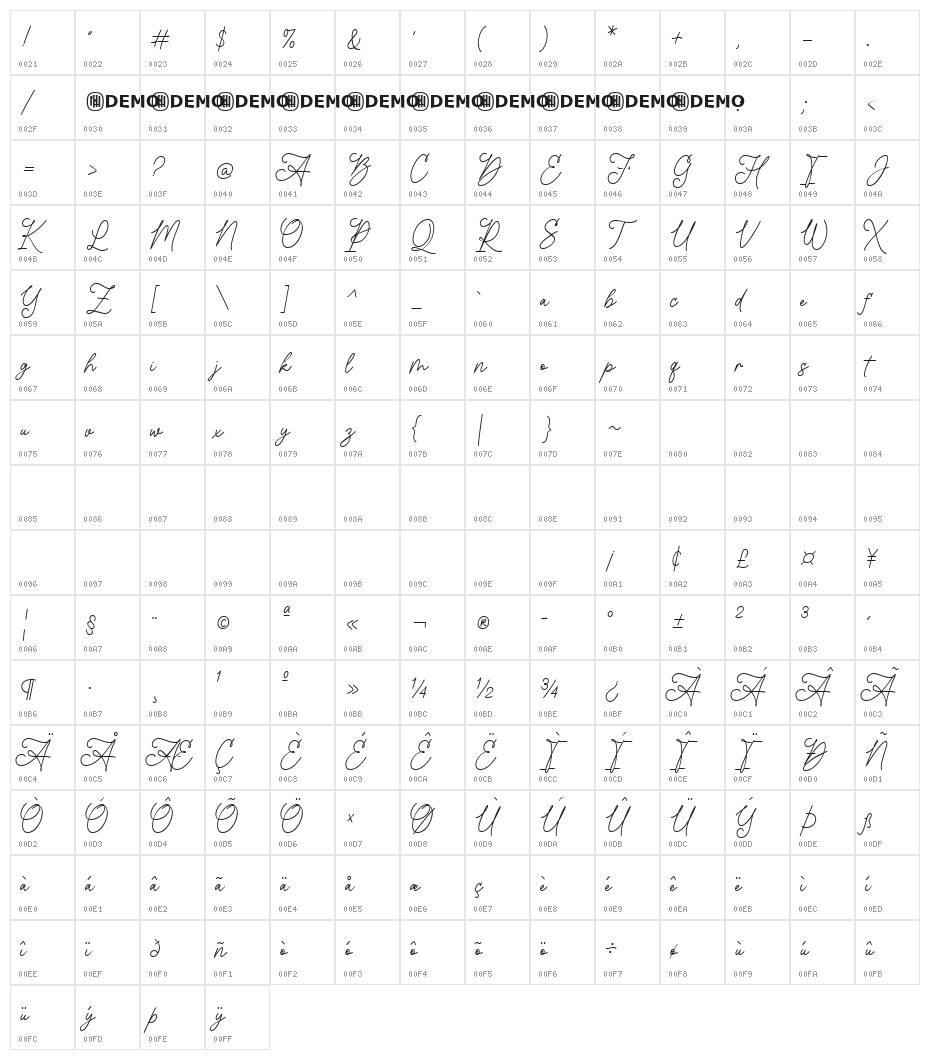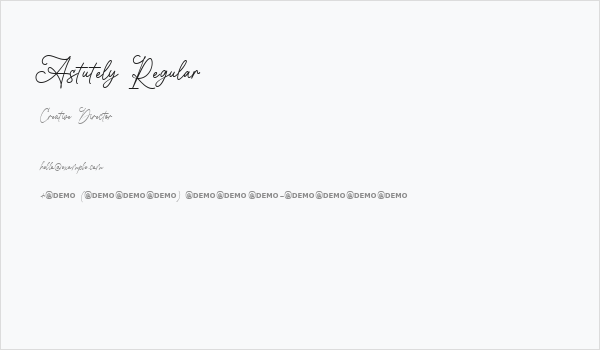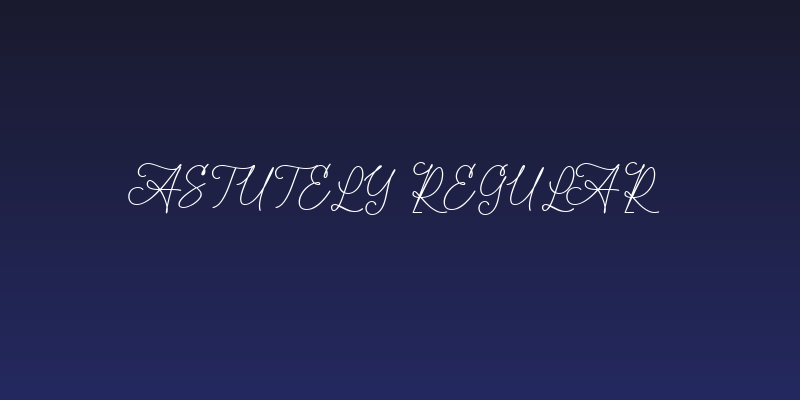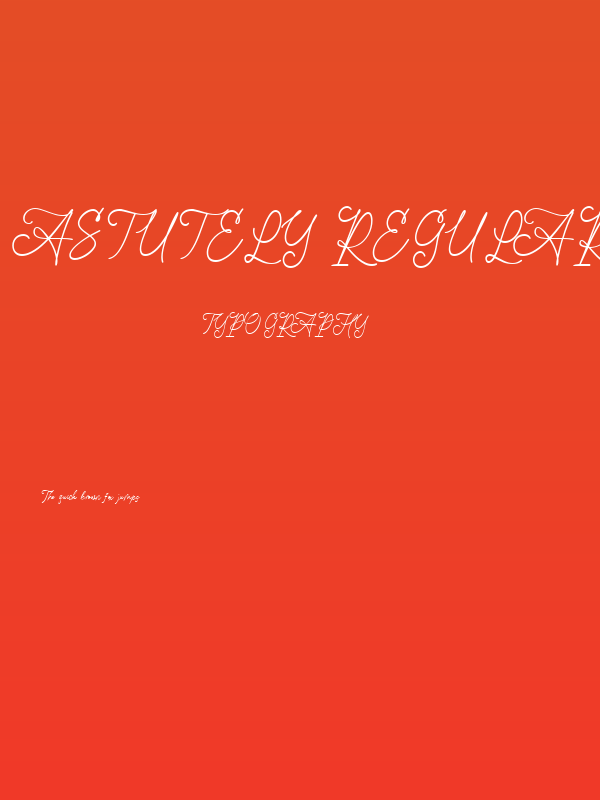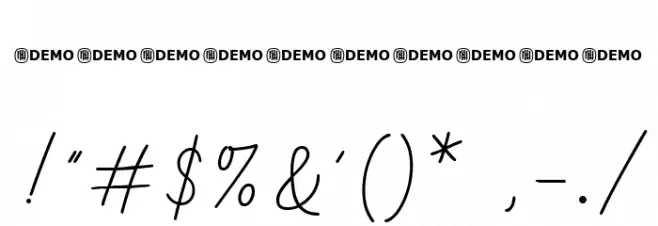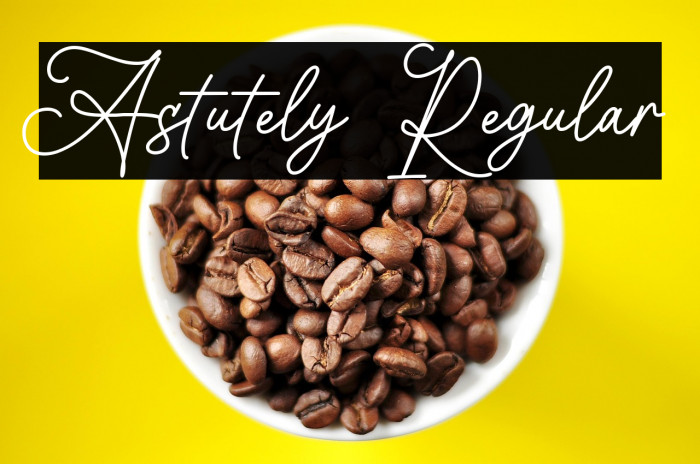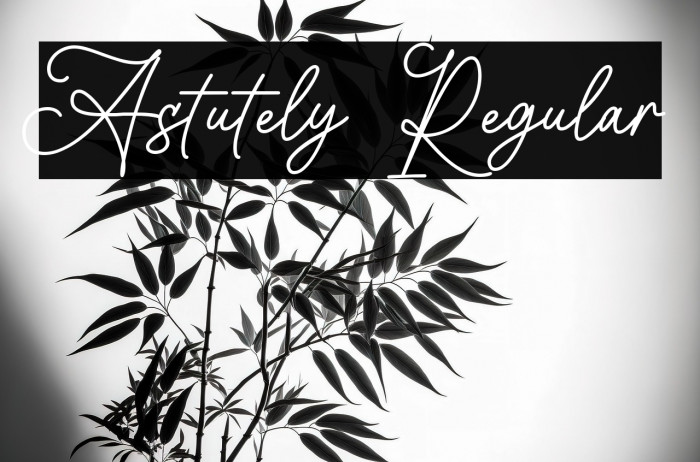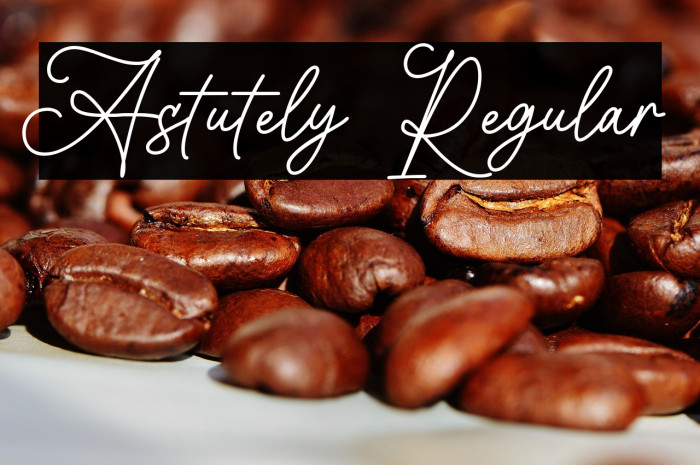
Astutely Regular Font
Astutely Regular Description
This font features an elegant and flowing script style, characterized by its smooth, connected strokes and graceful curves. The uppercase letters exhibit a sophisticated flair with intricate loops and swashes, while the lowercase letters maintain a consistent, fluid motion. The numerals and special characters complement the script with their delicate and refined appearance. This font exudes a sense of elegance and charm, making it suitable for formal and decorative applications.
| Use Case | Logos, Invitations, Decorative Headlines |
| Proposed Projects | Ideal for wedding invitations, elegant branding, greeting cards, and decorative headlines. |